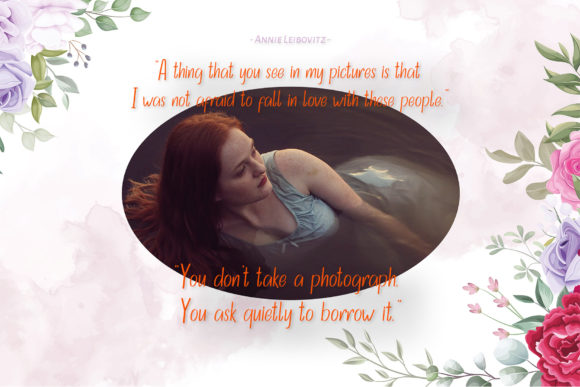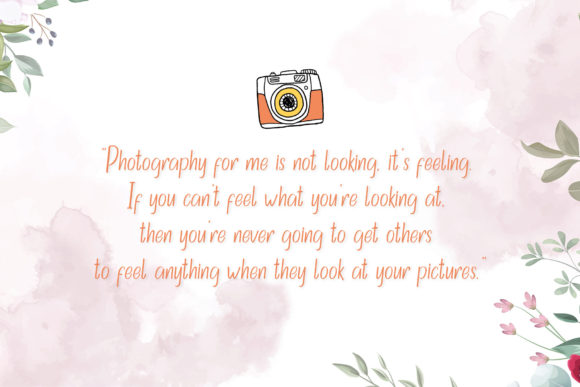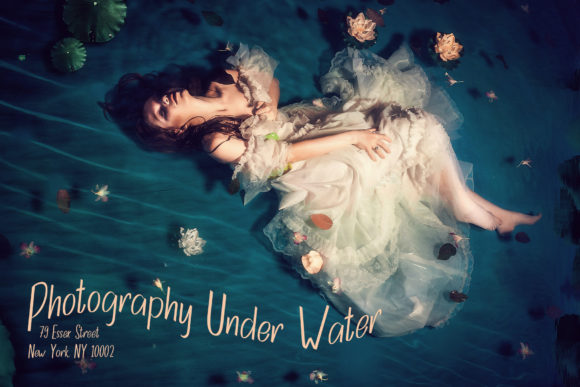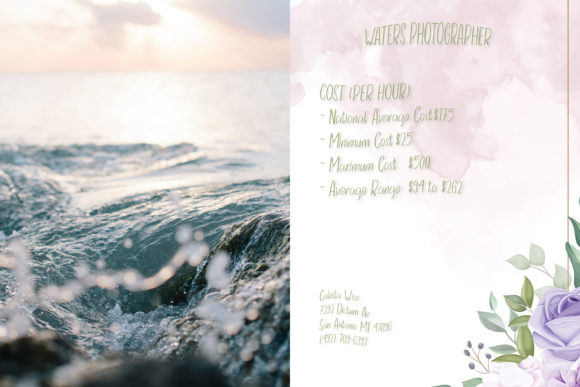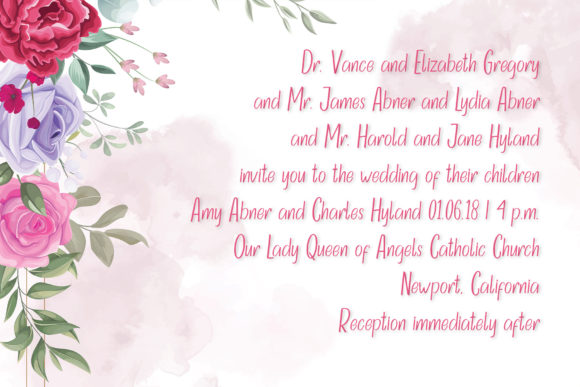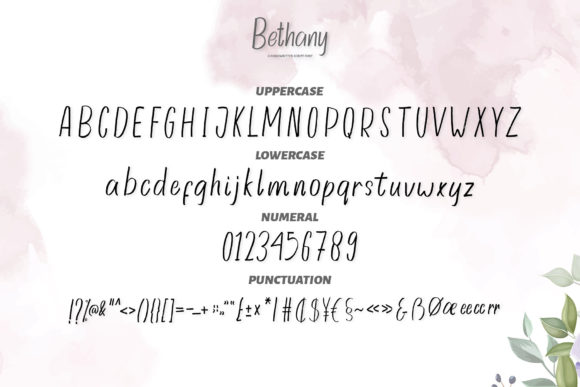
The Perfect Script Font for Your Next Project
There’s something magical about the moment when a design comes together – the perfect balance of colors, shapes, and typography. It’s the culmination of hours of brainstorming, sketching, and experimenting, but when it finally clicks, it’s pure magic. For designers, this moment is what makes all the hard work worth it. And sometimes, all it takes is the right font to elevate your design to the next level. That’s where the Bethany Font comes in – a stylish and dainty script font that’s sure to add a touch of elegance to any project.
Whether you’re working on a logo, branding project, label, or photography, the Bethany Font is the perfect choice. Its versatility and beauty make it a valuable asset for designers, allowing them to add a personal touch to their work. With the Bethany Font, you can create a lasting impression and make your design truly unforgettable.
Bethany Font Key Features
- Font Style: Script, Calligraphy
- Unique Characteristics: Elegant, cursive, and flowing lines; suitable for invitations, wedding designs, and other special occasions.
Bethany Font Review
As a designer, I was excited to try out the Bethany font, and I have to say it’s a mixed bag. ✨ On the plus side, the font’s elegant and feminine design is perfect for creating a sophisticated and polished look. The curly details and gentle lines make it ideal for wedding invitations, feminine branding, and other projects where a touch of whimsy is needed.
- ✨ Elegant and feminine design
- ✨ Perfect for wedding invitations and feminine branding
- ✨ Comes in various weights and styles
However, there are some limitations ⚠️ that I want to mention. Firstly, the font can feel a bit overused and generic, especially in larger text sizes. Additionally, the curly details can sometimes make the text look cluttered or busy. Lastly, the font may not be the best choice for projects where a more modern or minimalist aesthetic is desired.
- ⚠️ Can feel overused and generic
- ⚠️ Curly details can make text look cluttered
- ⚠️ May not be suitable for modern or minimalist designs
Overall, I think the Bethany font is a solid choice for designers who are looking for a elegant and feminine font. However, it’s not a one-size-fits-all solution, and designers should carefully consider the project’s requirements before choosing this font.
Bethany Font is ideal for:
1. Wedding invitations and stationery
2. Luxury branding and marketing materials
3. Elegant packaging and product labels
4. Sophisticated business cards and resumes
5. High-end event invitations and announcements